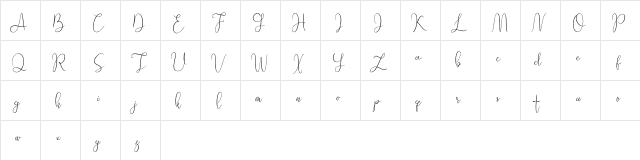
Sathien_demo Regular
Design Context for Sathien_demo Typeface
Sathien_demo is a composed and adaptable typeface that performs quietly and consistently across a wide range of design contexts.